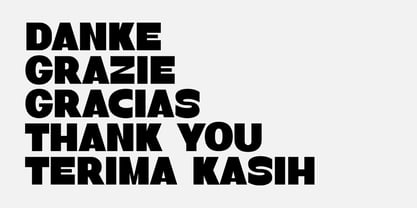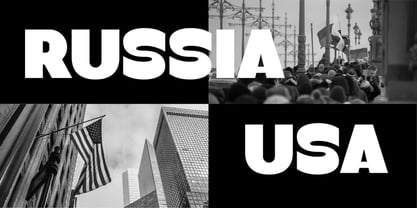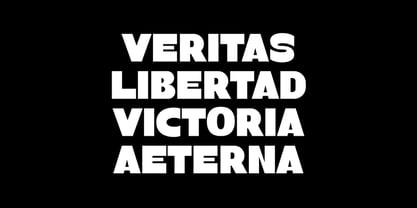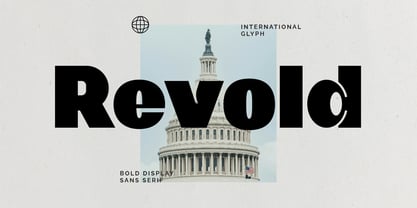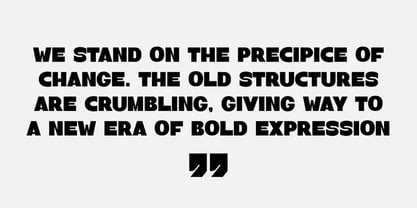
Revold
by Habitype
The Revold Font Family was designed by Fahrul Saputra and published by Habitype. Revold contains 1 styles. More about this family
Revold is a bold display sans serif font designed to capture a rebellious, revolutionary vibe and bring a sense of unyielding strength and defiance to your creative work. This heavy-weight typeface features a commanding structure with a distinct, modern edge, highlighted by an exaggerated ink trap feature which transforms a classic geometric structure into a raw, industrial statement piece.
Engineered with international glyph support for global versatility, its commanding weight and aggressive negative space make it the ultimate choice for high-impact streetwear branding, hardcore poster designs, brutalist editorial layouts, and any project that demands a confident, unapologetic aesthetic.
Designers: Fahrul Saputra
Foundry: Habitype